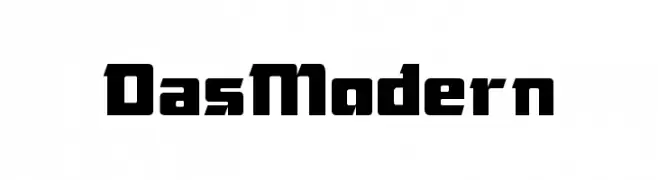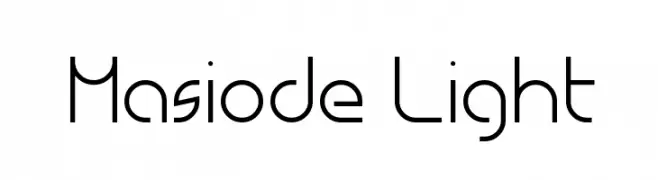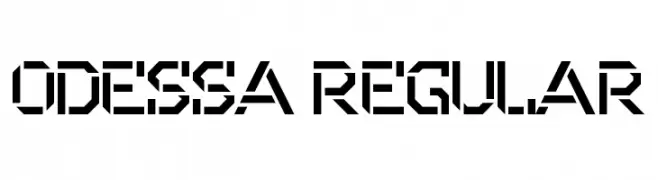
( Incstone Design, by Megami Studios - Rob Barba - www.incstonedesign.com/ )
A bold, distressed font with an eroded, industrial look.
( Intellecta Design - Paulo W - new.myfonts.com/foundry/Intellecta_Design/?refby=paulow )
A bold, geometric font with strong, block-like characters and a modern aesthetic.
( Isaac González )
A bold, geometric font with a futuristic and angular design.
( Khiro )
A modern, rounded font with smooth curves and a clean, minimalist aesthetic.
( Khiro )
A modern, rounded font with a clean and approachable design.
( Khiro )
A modern, geometric sans-serif font with clean lines and rounded edges.
( Khiro )
A modern, geometric font with clean lines and a sleek design.
( Marley Did It - www.marleydidit.com )
A bold, geometric grid-based font with a modern and decorative style.
( Rémi Godefroid - remigodefroid.com )
A dynamic, italic outlined font with sharp angles and a modern flair.
( Thor Christopher Arisland - www.tcarisland.com )
A modern, node-based font with characters formed by dots and lines.